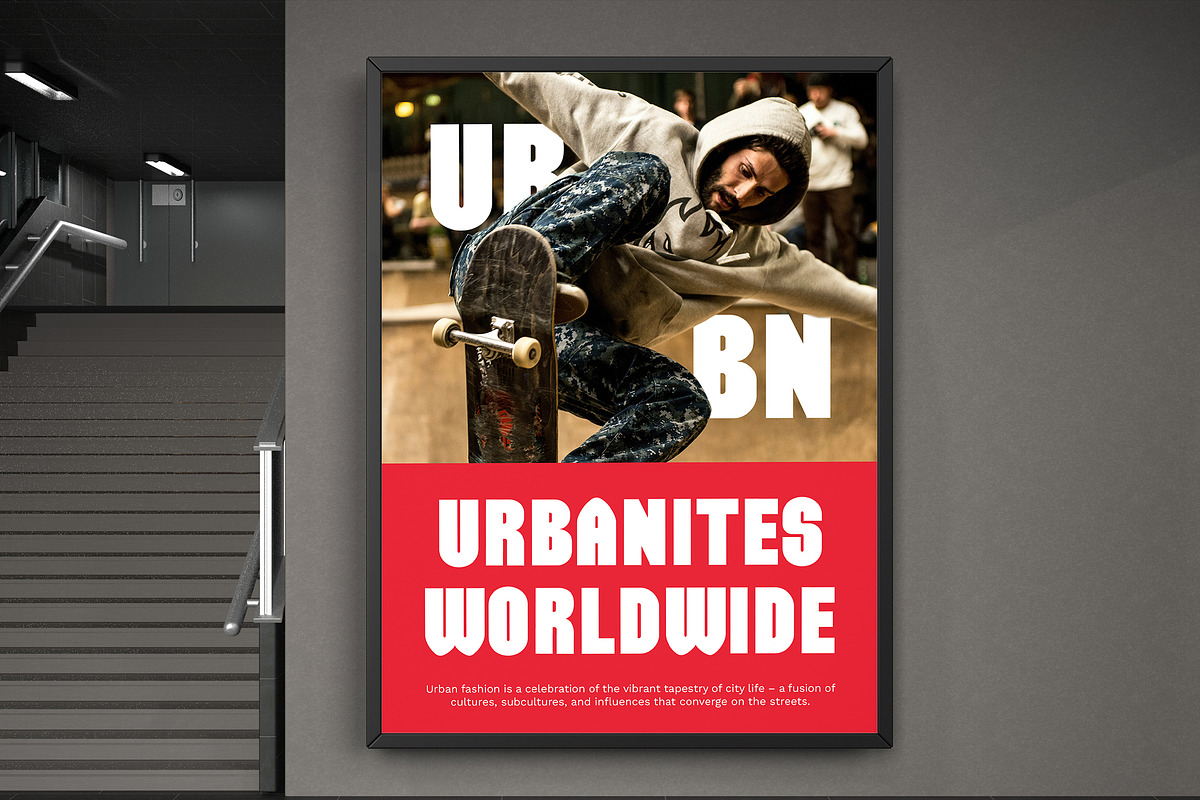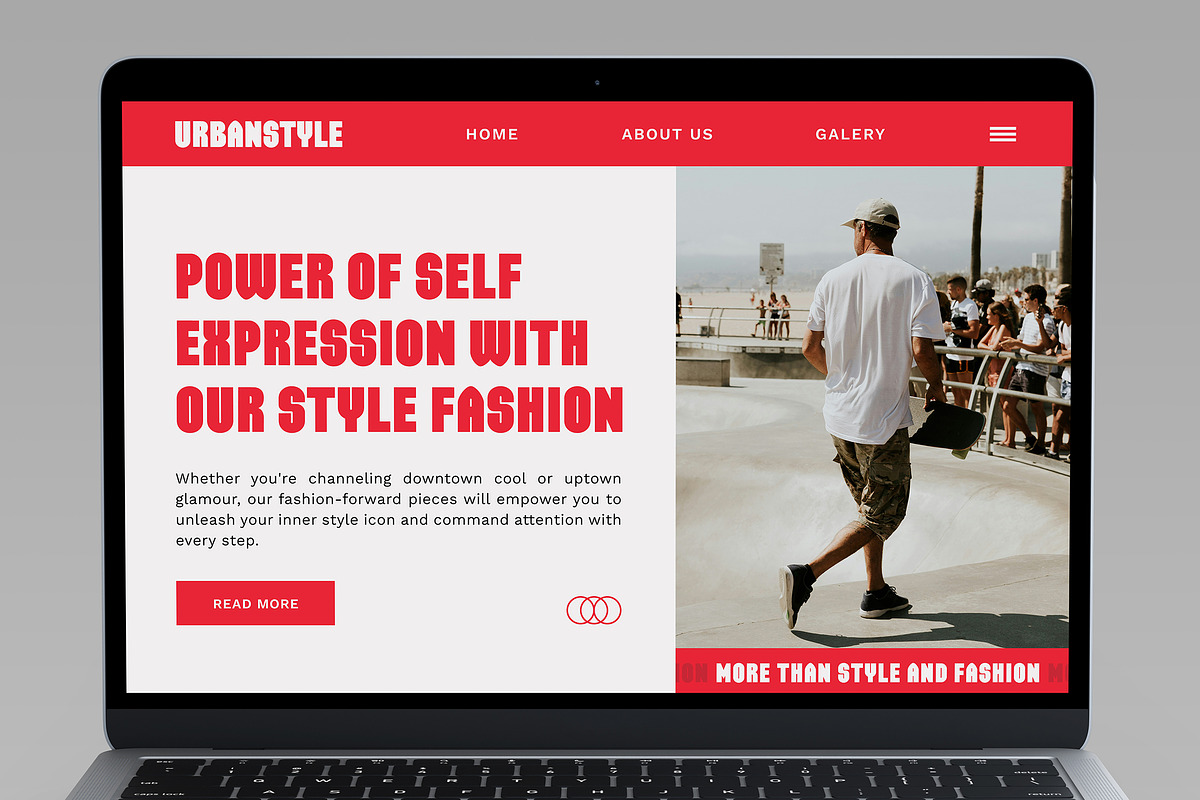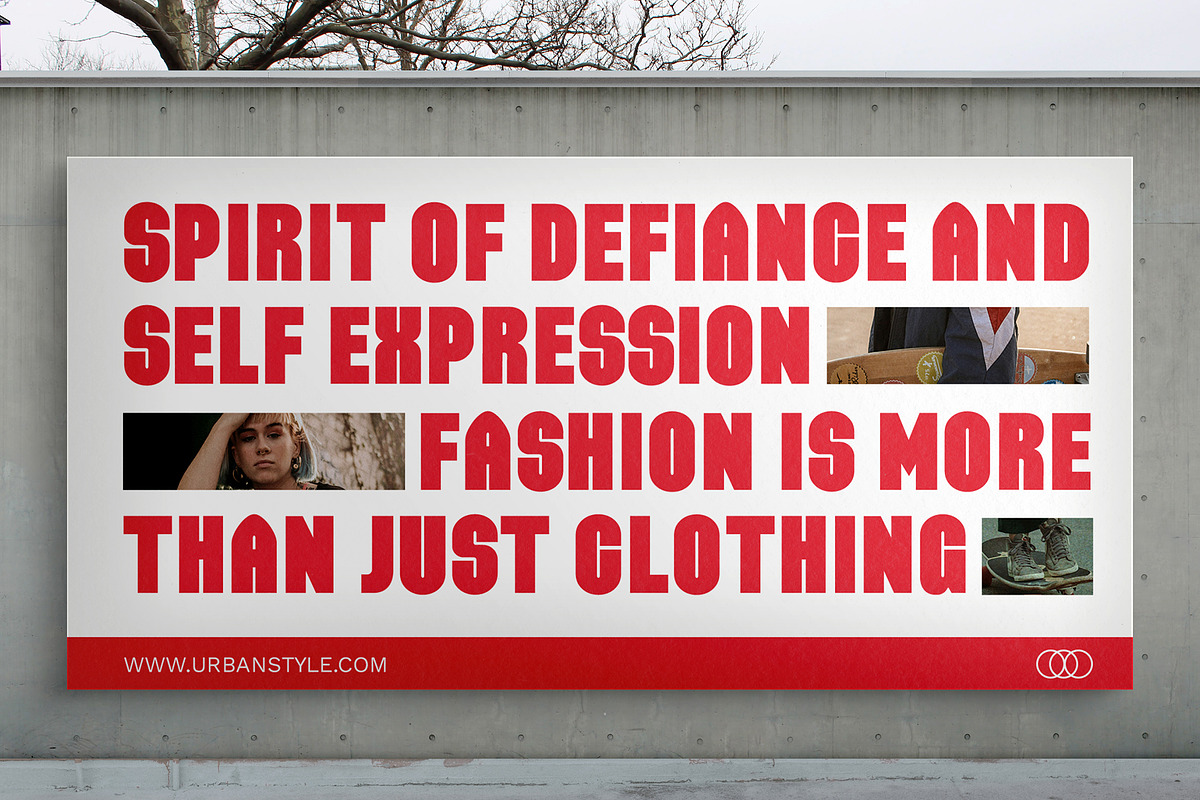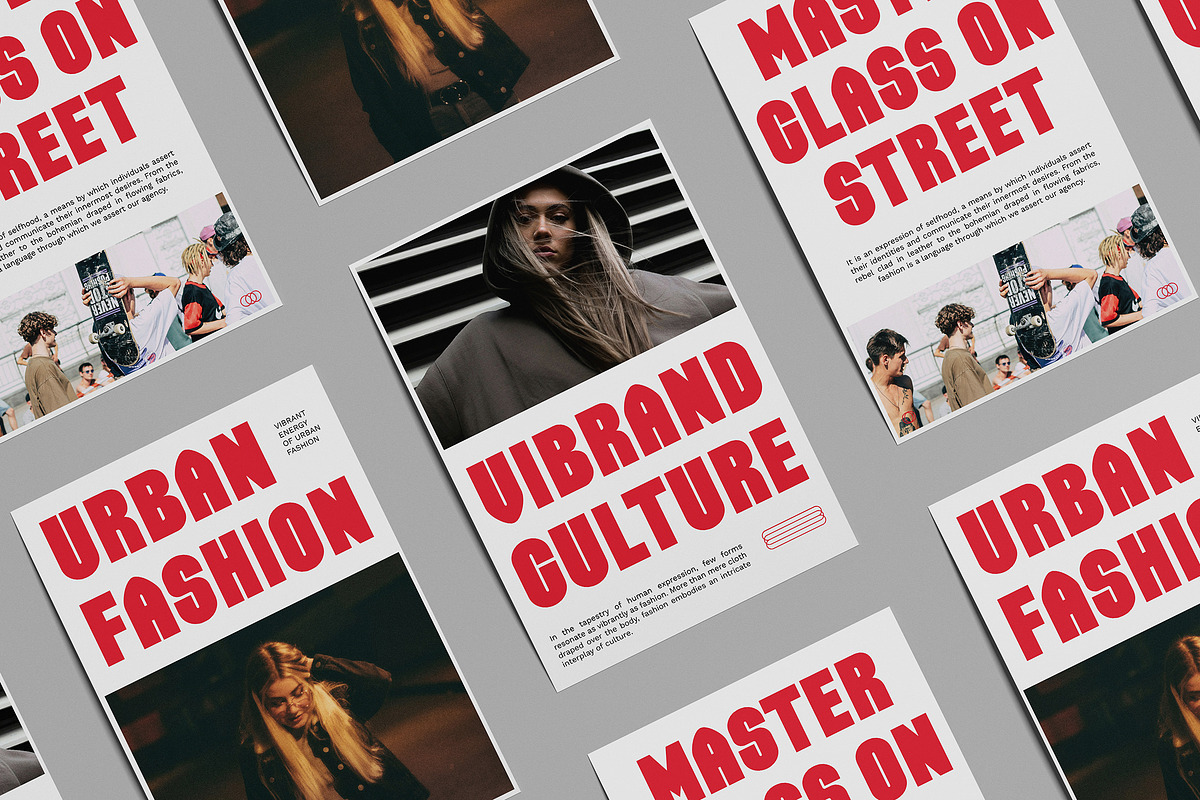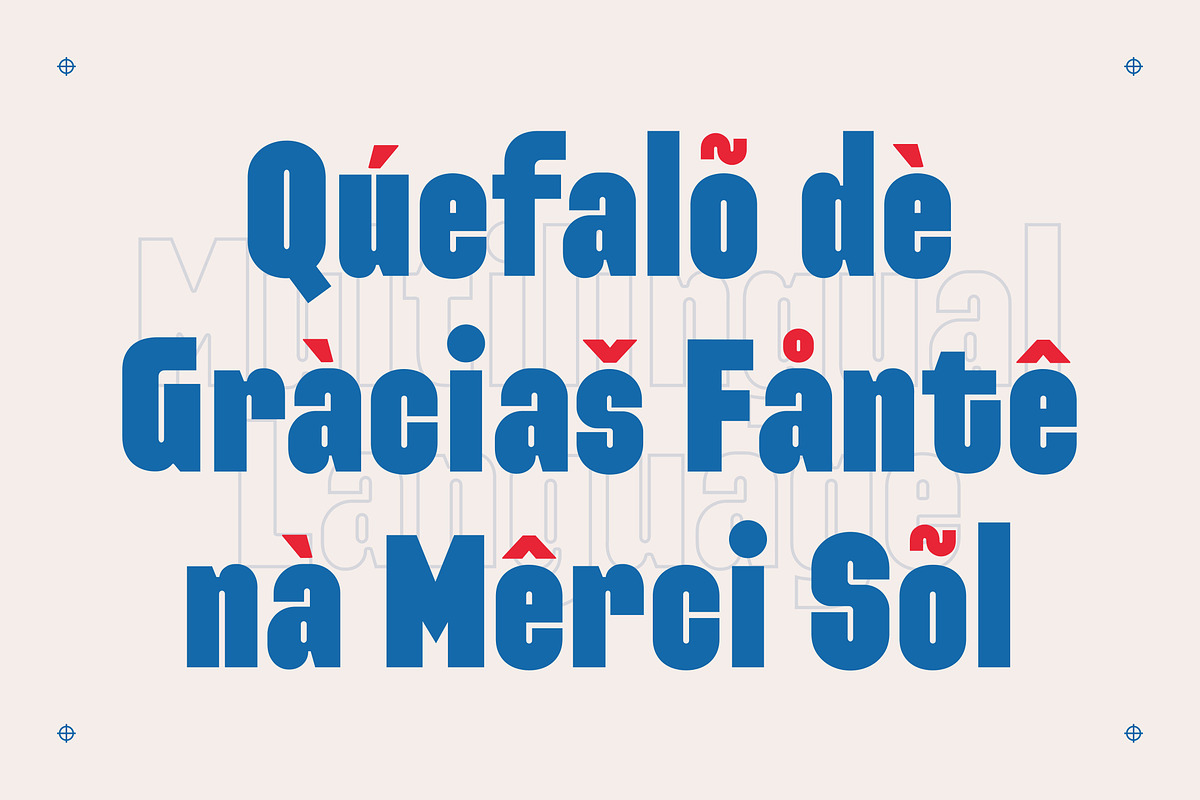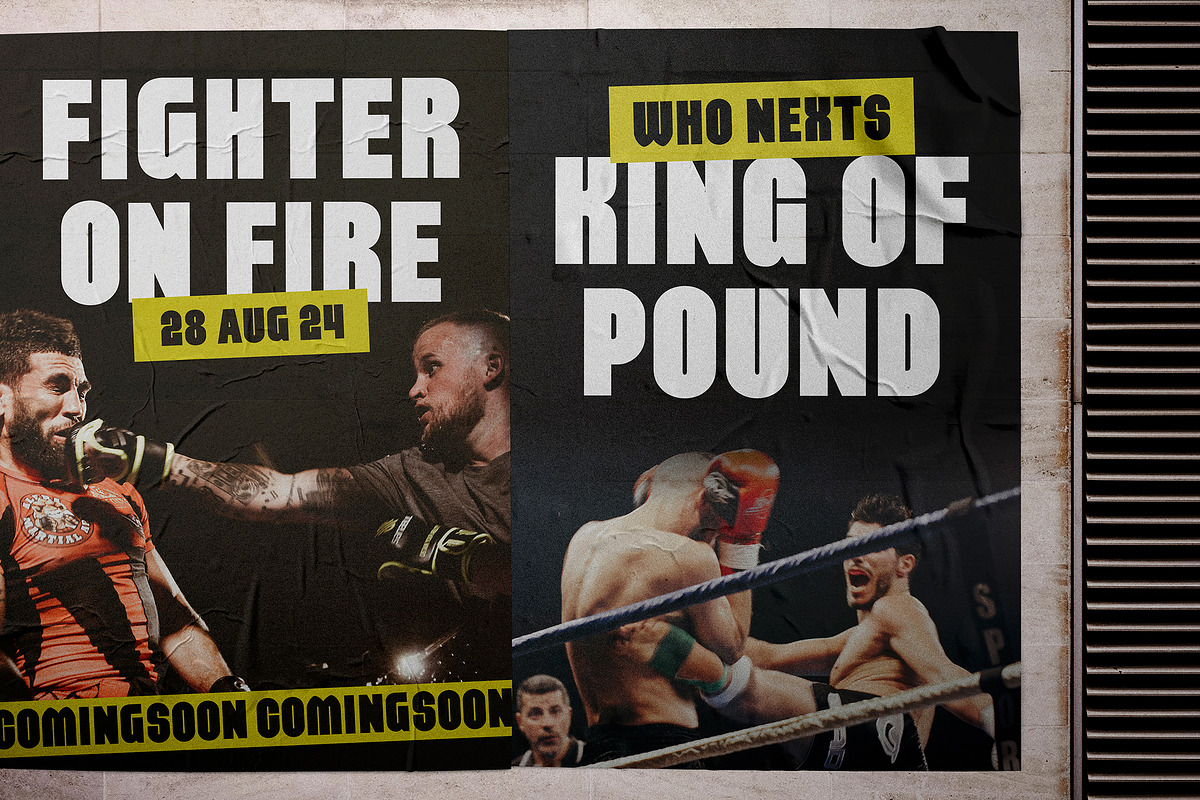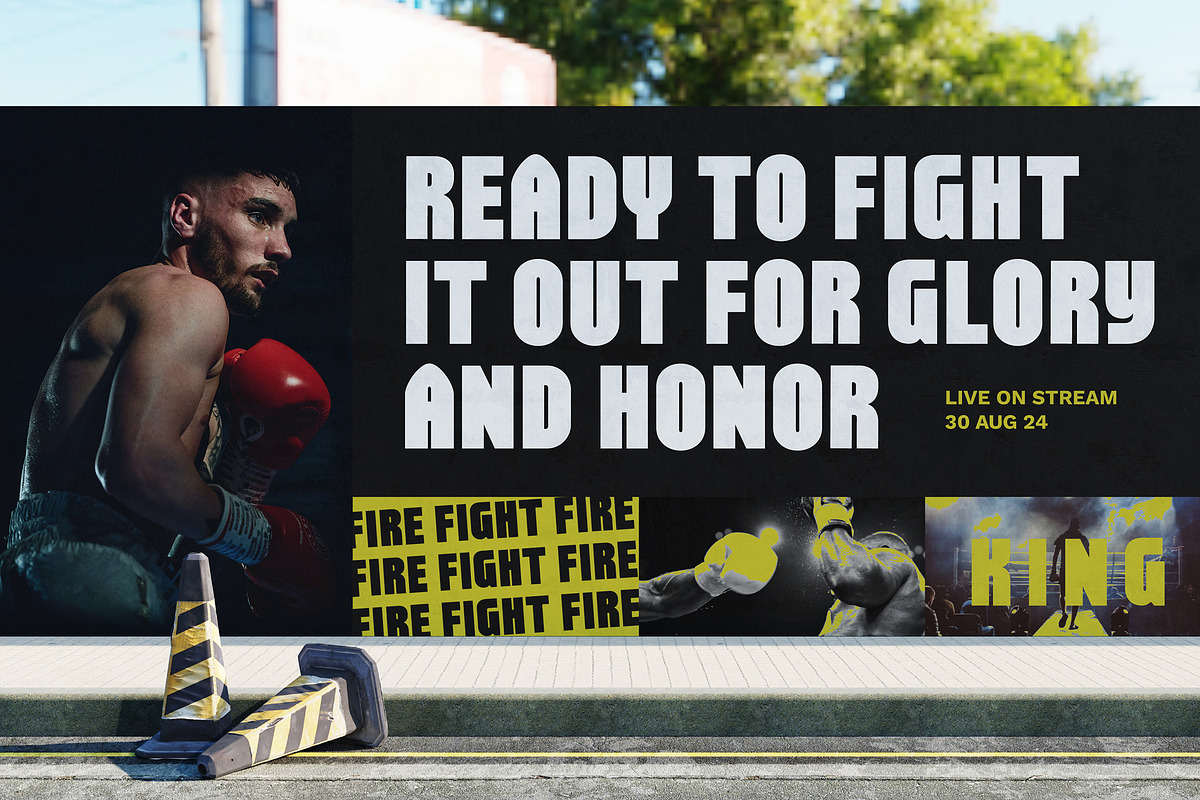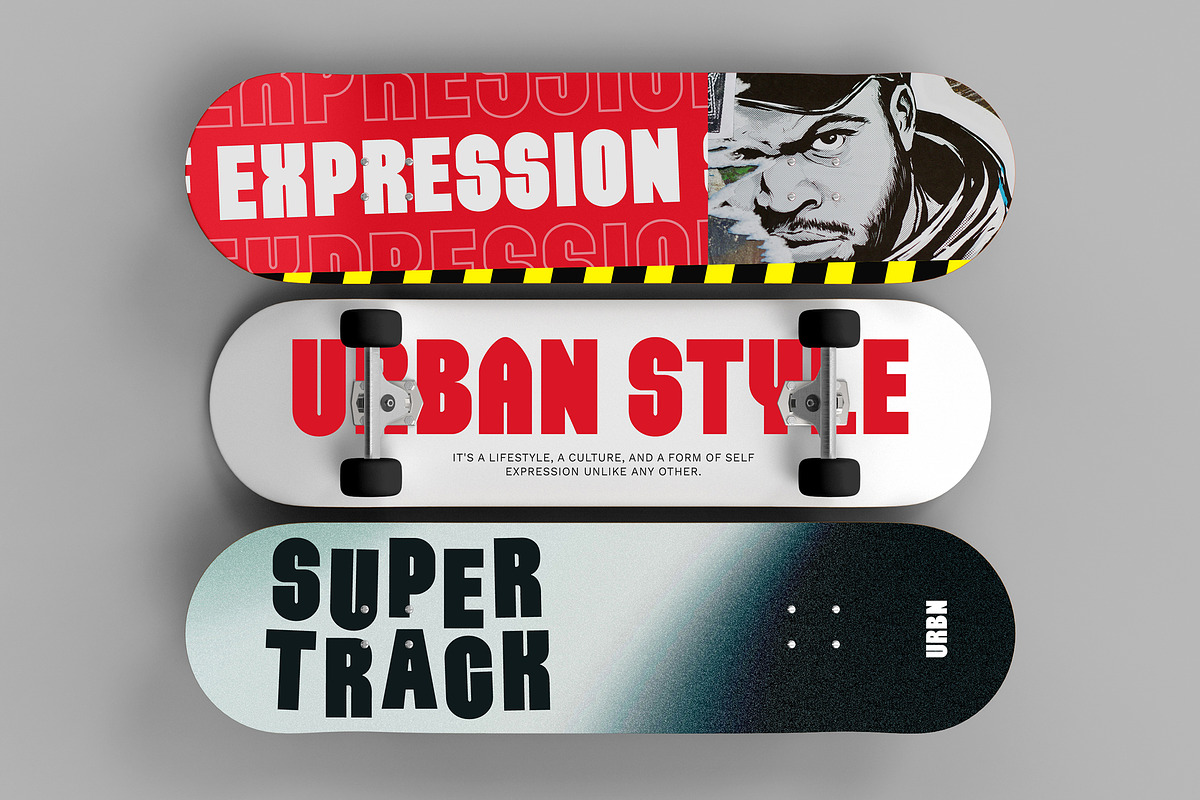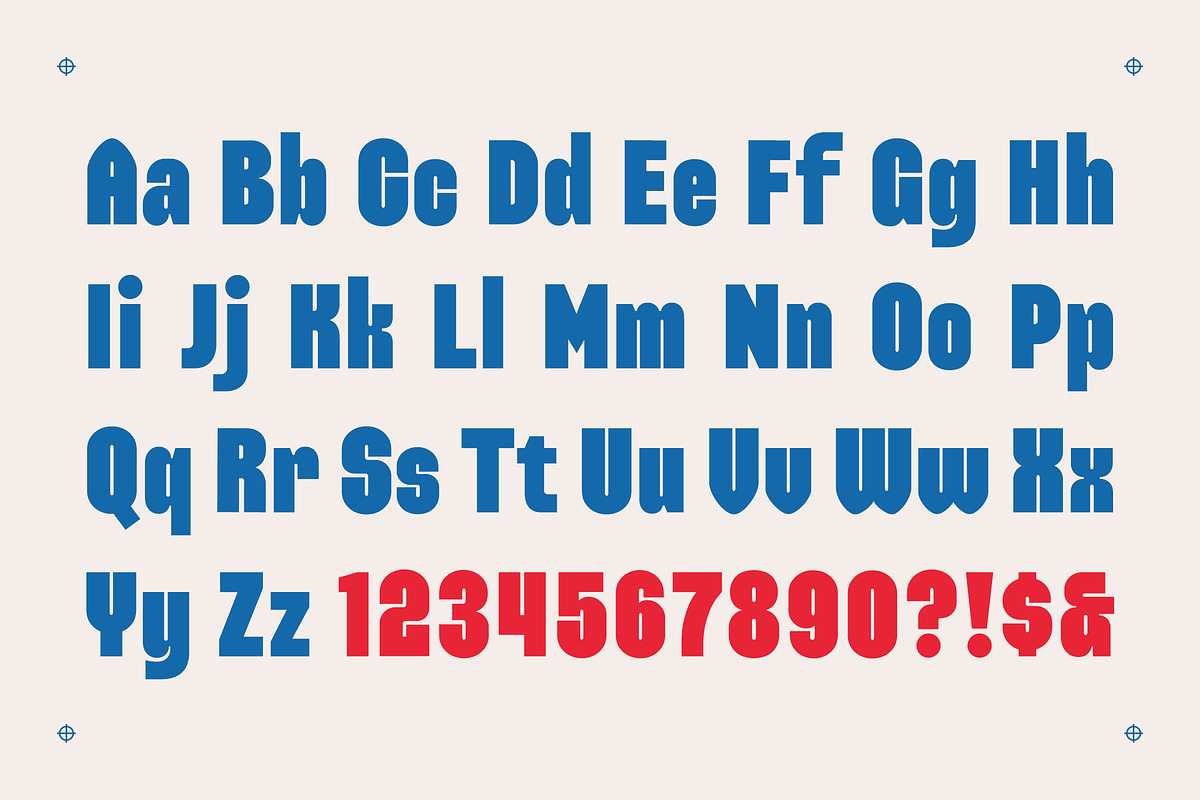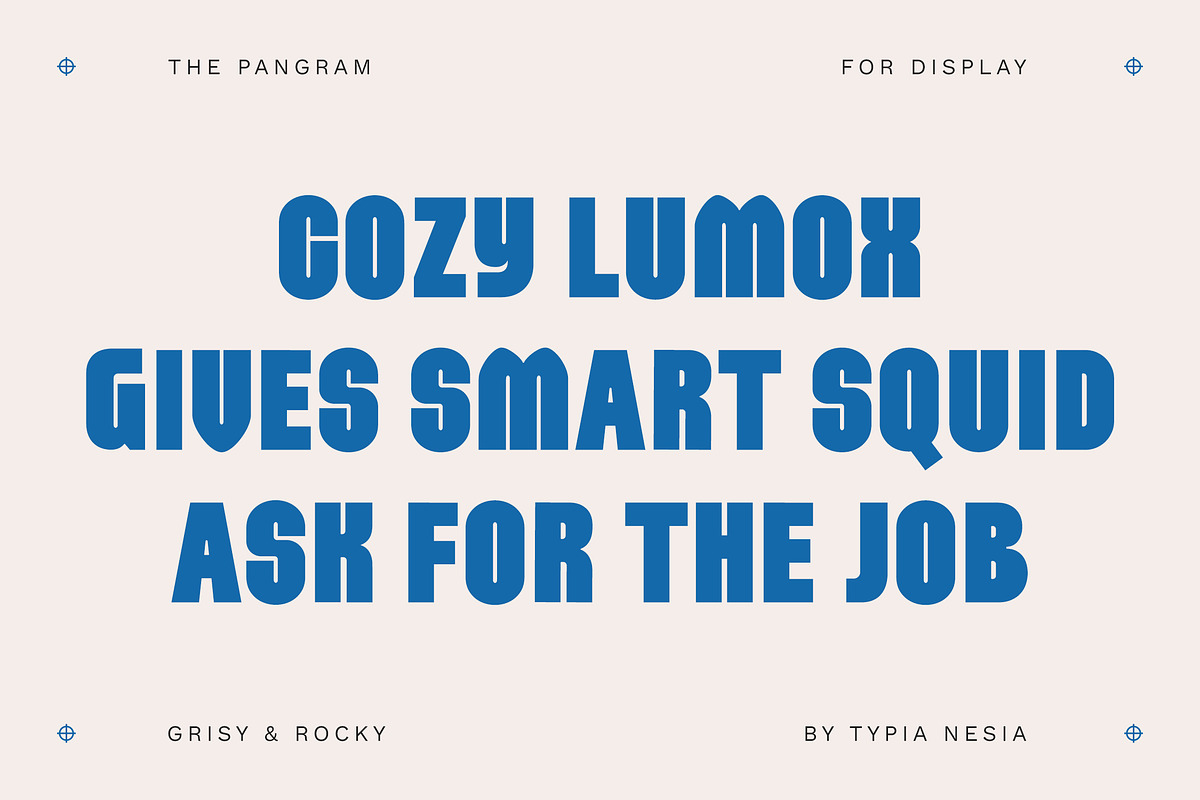
Grisy & Rocky - Condensed Bold Sans
Grisy & Rocky - Condensed Bold Sans Serif - Modern Urban Display Font
Grisy & Rocky presents a Condensed Bold Sans Serif font that embodies modernity and versatility. Its condensed design exudes confidence and ensures maximum impact in any design application. Designed for various design such as headlines, posters, and branding materials, Logo Design, Product Packaging, Apparel Design, Event Promotion, Gym Signage, Magazine Covers, Digital Marketing Campaigns, Sports Broadcast Graphics, Blog and Website Headers. Grisy & Rocky adds a touch of contemporary sophistication and bold sans serif style commands attention and communicates strength any project. Grisy & Rocky comes with ligatures and alternates to enhance the fluidity and diversity of its characters, allowing for creative expression and customization. With comprehensive support for uppercase and lowercase letters, punctuation marks, numerals, and multilingual characters, it caters to diverse design needs. Crafted with expertise in modern typography, Grisy & Rocky reflects a deep understanding of design principles and aesthetics. Its Condensed Bold Sans Serif design showcases mastery in creating fonts that convey confidence and impact.